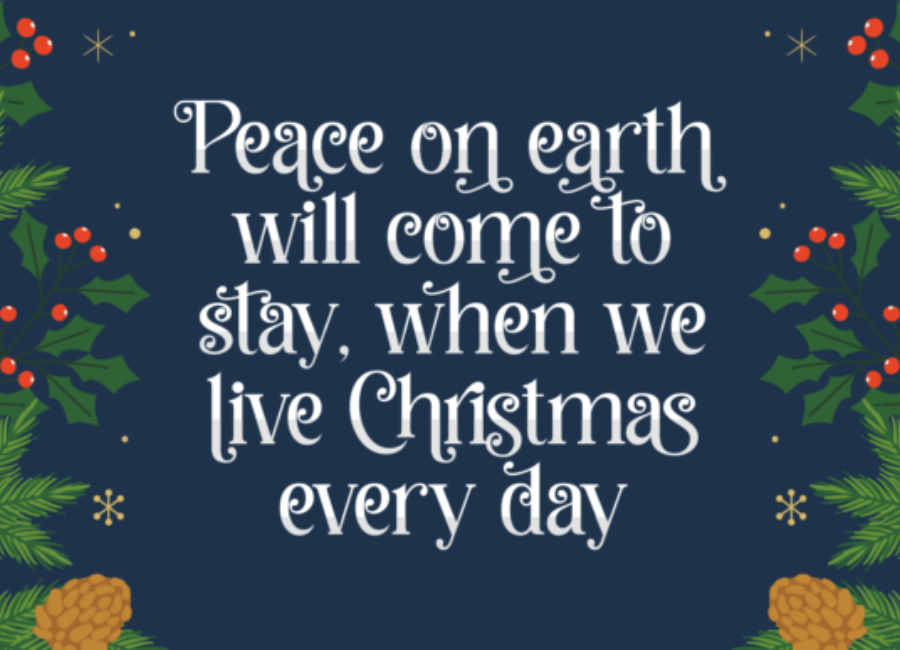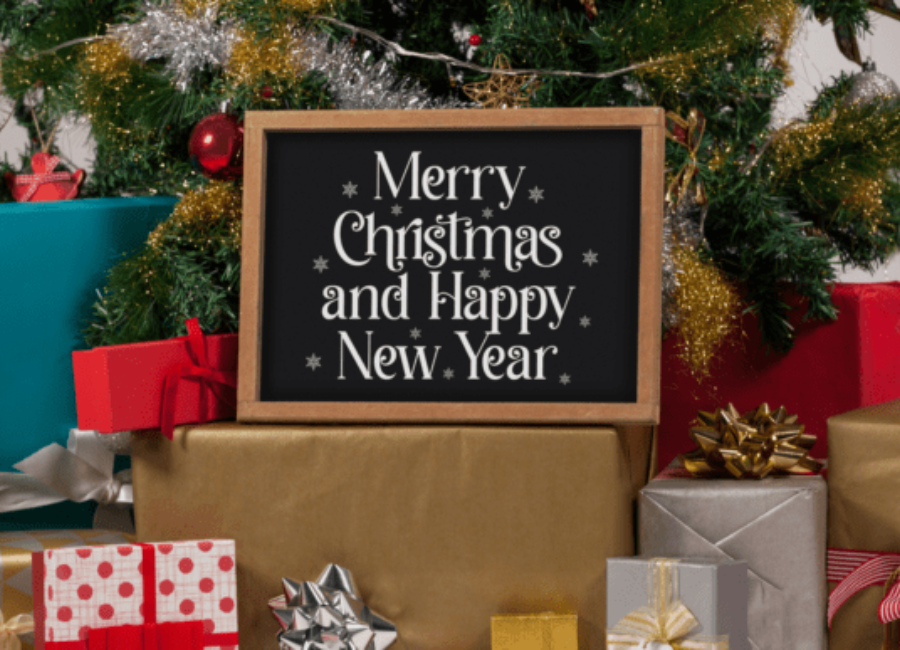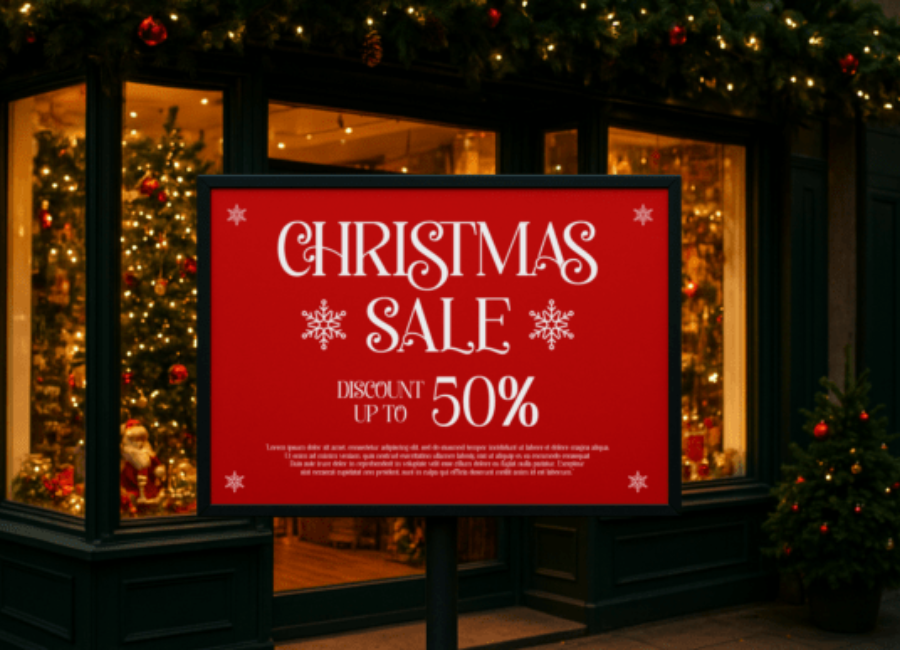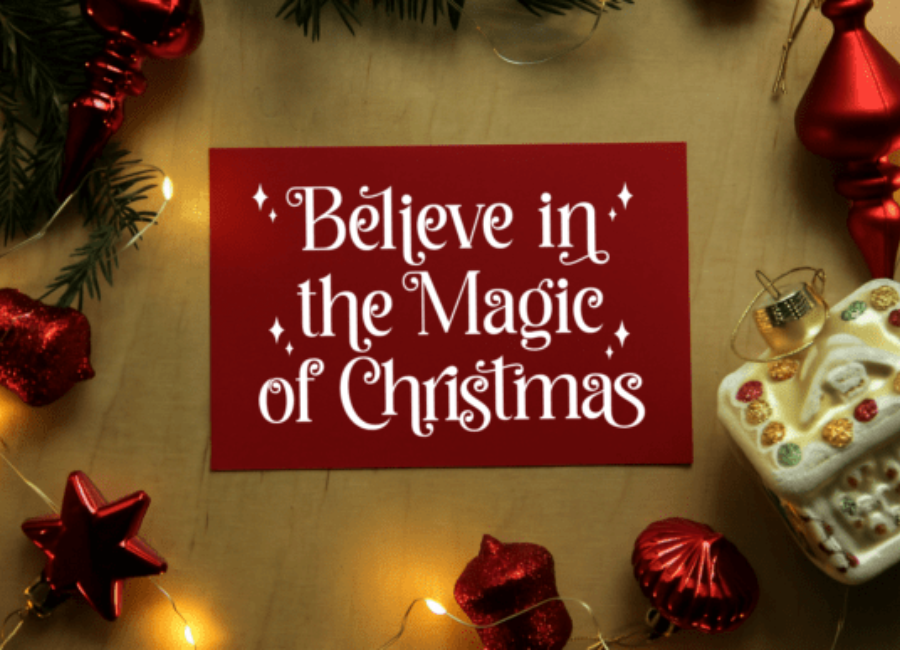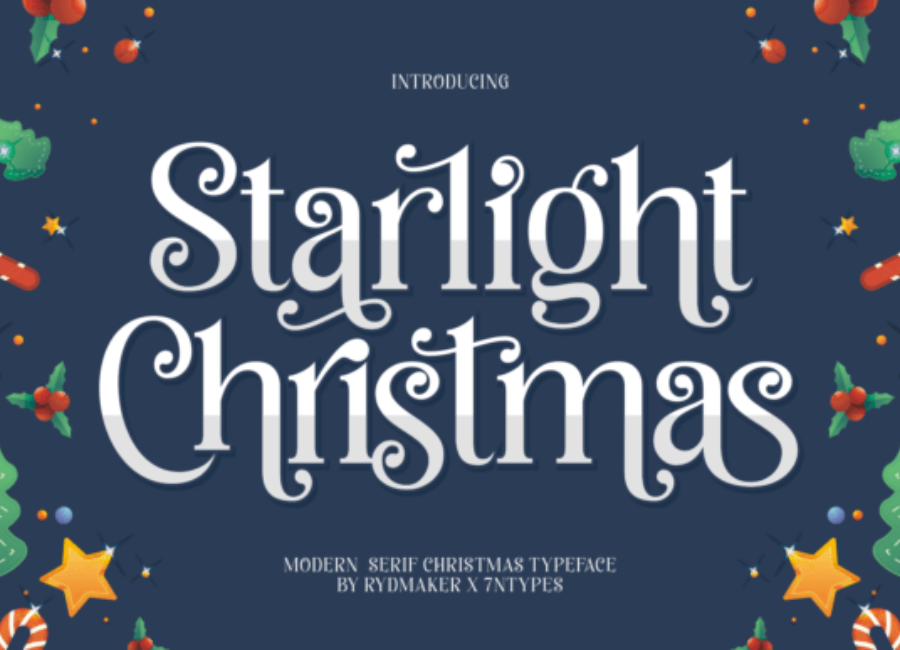
Starlight Christmas Font: A Magical Typeface for Festive Designs
The holiday season is a time of warmth, celebration, and creativity, and typography plays a powerful role in bringing festive designs to life. Among the many seasonal typefaces available, Starlight Christmas Font stands out as a charming and joyful choice that captures the sparkle and magic of Christmas. With its decorative details and playful personality, this font is designed to instantly evoke the spirit of the holidays.
Starlight Christmas Font is ideal for designers who want to create visually engaging and emotionally resonant holiday projects. Whether used in print or digital formats, this font adds a delightful seasonal touch that enhances the overall festive experience.
The Festive Personality of Starlight Christmas Font
Starlight Christmas Font is inspired by classic holiday elements such as twinkling lights, winter nights, and joyful celebrations. Its letterforms often feature soft curves, whimsical strokes, and decorative accents that reflect the warmth and excitement of Christmas. The font feels cheerful and inviting, making it perfect for spreading holiday joy through design.
Unlike minimal or neutral typefaces, Starlight Christmas Font embraces its decorative nature. It is designed to stand out, adding personality and emotion to every word. This makes it especially effective for seasonal messaging where mood and atmosphere are just as important as readability.
Visual Features and Letterform Style
One of the defining characteristics of Starlight Christmas Font is its playful structure. The letters often appear hand-crafted, giving the font an authentic and personal feel. Rounded edges and consistent stroke weight help maintain balance, while subtle decorative details add visual interest without overwhelming the design.
Uppercase letters are typically bold and eye-catching, making them ideal for headlines and titles. Lowercase characters maintain a friendly flow, allowing words to feel connected and harmonious. Spacing and alignment are thoughtfully designed to ensure clarity, even when used in busy or colorful holiday layouts.
These features allows Font to remain readable while still delivering a festive and decorative impact.
Perfect Applications for Holiday Designs
Starlight Christmas Font is highly versatile within seasonal design projects. Its joyful appearance makes it suitable for a wide range of creative uses during the holiday season.
Christmas Cards and Invitations
One of the most popular uses is in greeting cards and invitations. Its warm and playful style helps convey heartfelt messages, making designs feel personal and memorable. Whether for family gatherings or corporate holiday events, the font adds charm and character.
Gift Tags and Packaging
Holiday packaging benefits greatly from expressive typography. Starlight Christmas Font works beautifully on gift tags, wrapping paper, labels, and festive product packaging. It enhances the unboxing experience by adding a magical, celebratory touch.
Social Media and Digital Graphics
In the digital space, Starlight Christmas Font is perfect for holiday posts, promotional banners, and festive announcements. Its decorative nature helps content stand out on social media feeds, making it ideal for brands and creators sharing seasonal messages.
Posters and Promotional Materials
For seasonal sales, events, or holiday markets, this font adds instant festive appeal to posters and flyers. It captures attention quickly and sets the tone for celebration and joy.
Font Pairing and Design Balance
Because Starlight Christmas Font is decorative and expressive, pairing it with simpler fonts is key to maintaining balance. Clean sans-serif or classic serif fonts work well for body text, supporting the festive headlines without competing for attention.
For example, using for titles and combining it with neutral fonts like Open Sans, Poppins, or Times New Roman ensures readability while preserving the holiday mood. This contrast creates a visually pleasing hierarchy within the design.
Emotional Impact and Seasonal Storytelling
Typography has the power to evoke emotion and excels in this area. It communicates joy, nostalgia, and celebration—emotions closely tied to the holiday season. The font helps tell a story of togetherness, warmth, and festive cheer, making it an excellent choice for both personal and commercial projects.
Designers often choose this font to create a sense of wonder and excitement, especially in designs aimed at families, children, or holiday shoppers. Its friendly appearance invites viewers to engage with the message and feel the spirit of Christmas.
Readability and Best Practices
While is visually engaging, it is best used in moderation. It performs exceptionally well in short text elements such as headings, titles, and decorative phrases. For longer passages, it is recommended to limit its use and rely on more traditional fonts for readability.
For anyone looking to elevate their holiday visuals with a typeface that truly reflects the spirit of Christmas, Starlight Christmas Font is a delightful and inspiring choice.